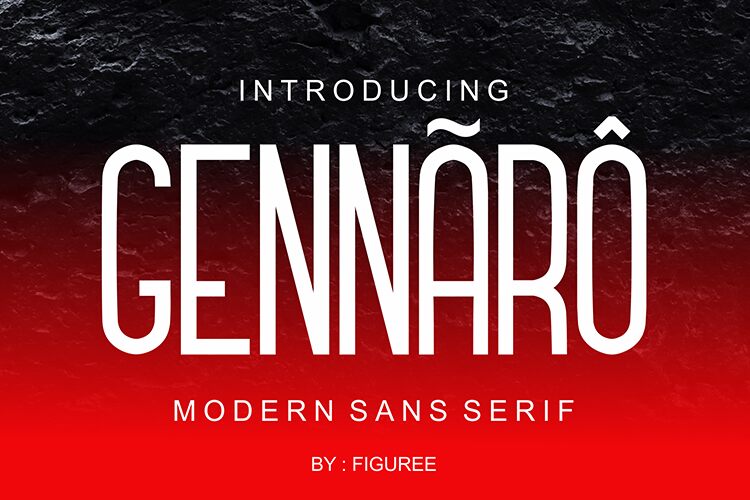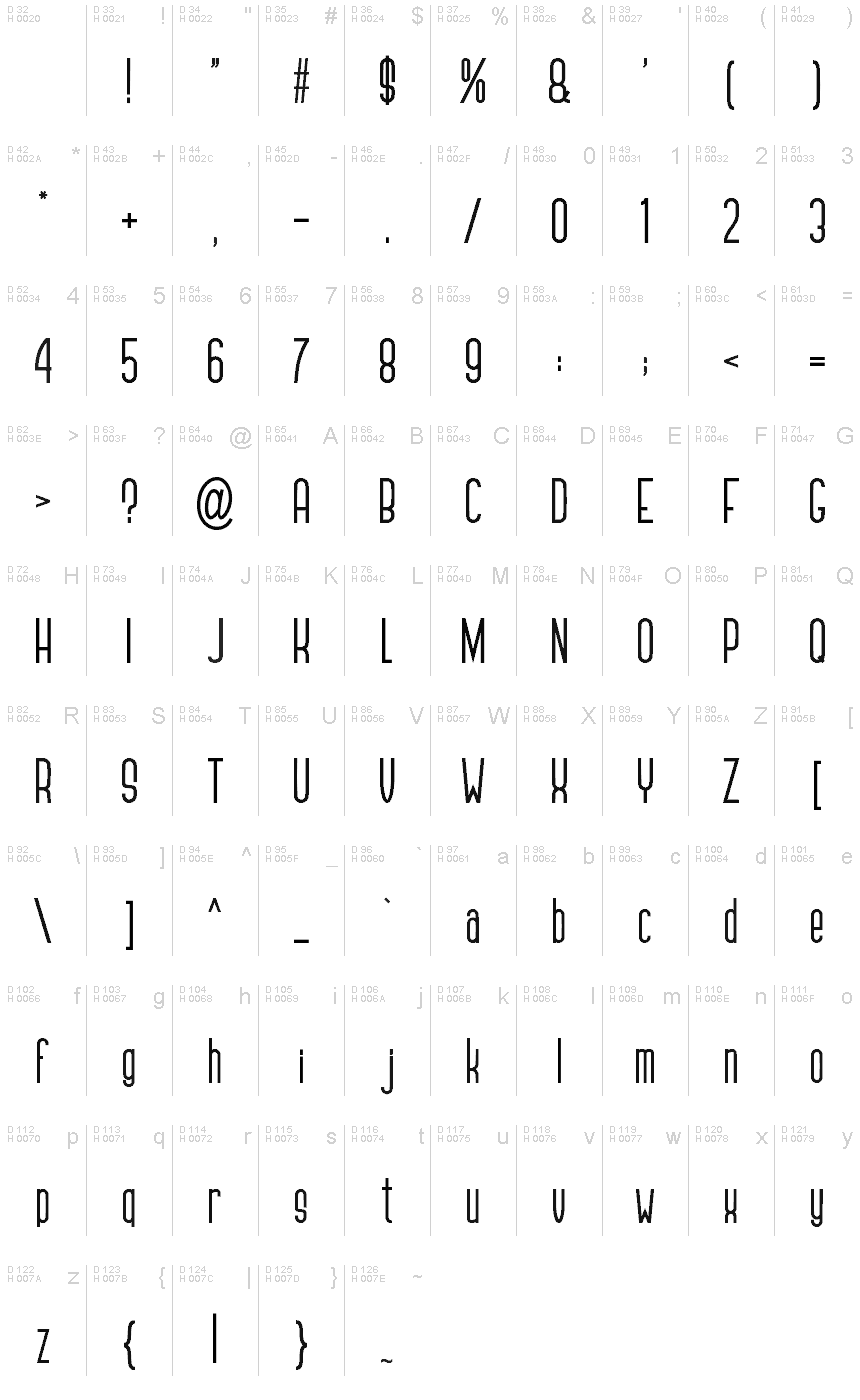
GENNARO
The Gennaro is a sans serif typeface with beautiful lines & a minimalist style.
Its a perfect choice for branding, magazines, posters, advertising, packaging, headlines, logos, web, print etc.